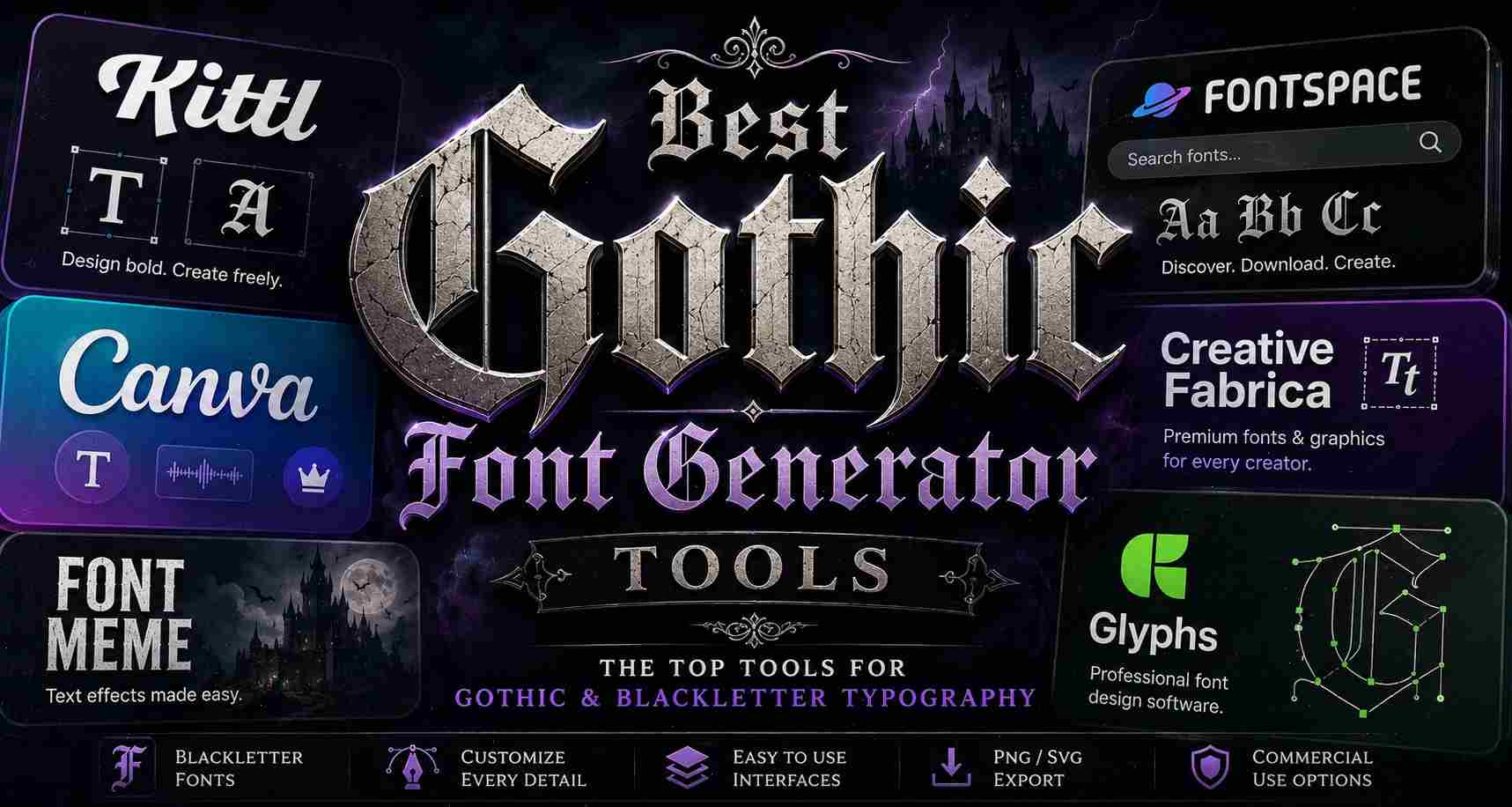
Best Gothic Font Generator Tools in 2026: Free, AI-Powered & Downloadable Options
Gothic typography keeps showing up everywhere in 2026 — gaming logos, dark fantasy branding, metal-inspired merch, TikTok edits, YouTube thumbnails, and even cyber-goth UI design. The problem is that most “gothic text generators” online still feel outdated, overloaded with ads, or limited to basic copy-paste text effects.
The best Gothic font generator tools today go beyond simple text conversion. They let you customize spacing, shadows, medieval textures, engraving styles, and export-ready assets for real projects.
After comparing modern typography platforms and font-focused design tools, these are the Gothic font generators that actually stand out.
What Makes a Good Gothic Font Generator?
Not every blackletter or medieval font tool is useful in practice. Some generate attractive previews but completely fall apart when you try to use them for branding or content creation.
The strongest tools in 2026 usually offer:
- Real OpenType Gothic fonts
- Editable typography controls
- Layer effects for dark fantasy styling
Another important detail: readability.
A lot of Gothic fonts look impressive at first glance but become unreadable in logos, thumbnails, or UI overlays. The best generators balance atmosphere with clarity.
Best Gothic Font Generator Tools in 2026
1. Kittl
Kittl has become one of the strongest typography-focused platforms for Gothic and medieval-style text design.
Its biggest advantage is the built-in styling engine. You can create blackletter typography and instantly apply engraved textures, metallic effects, vintage shading, and fantasy-inspired layouts without manually building everything layer by layer.
For gaming creators and merch designers, this workflow is noticeably faster than using traditional graphic editors for every design variation.
Best For:
Dark fantasy logos, RPG branding, metal-inspired merch, YouTube thumbnails.
Why It Works:
- Excellent Gothic template library
- Real-time text effects
- Strong medieval and vintage typography presets
One thing worth noting: some presets lean heavily into trendy aesthetics. For professional branding, simplifying the effects usually produces cleaner results.
2. Canva
Canva still isn’t a dedicated font design platform, but for fast Gothic typography creation, it works surprisingly well.
The main advantage is speed. You can select blackletter fonts, combine them with social templates, and export polished graphics within minutes.
It works especially well for:
- Twitch overlays
- Discord banners
- TikTok graphics
- quick gaming thumbnails
Best For:
Social content, streamer branding, quick fantasy visuals.
Why It Works:
The limitation is customization depth. Compared to typography-focused tools, Canva offers less control over advanced glyph styling and OpenType features.
3. Font Meme
Font Meme remains one of the simplest browser-based Gothic text generators online.
You type text, choose a Gothic or Old English font, apply basic effects, and export the result immediately.
It’s lightweight and useful when you need fast stylized text without opening a full design application.
Best For:
Quick text generation, meme culture graphics, temporary branding concepts.
Why It Works:
- Extremely fast
- No learning curve
- Huge font preview library
- Great for experimenting with styles
The downside is flexibility. Once projects become more serious, most creators quickly move toward more advanced design tools.
4. FontSpace
FontSpace works more like a font discovery platform than a complete editor, but it’s still one of the best places to explore Gothic typography styles.
Its blackletter and medieval categories include:
- horror fonts
- vampire-inspired typography
- church manuscript styles
- fantasy lettering
- heavy Gothic display fonts
Best For:
Finding niche Gothic fonts for branding and UI design.
Why It Works:
- Huge font catalog
- Strong filtering system
- Good preview tools
- Many free-use options
Licensing varies significantly between fonts, so checking commercial rights before using fonts in monetized projects is important.
5. Creative Fabrica Font Generator
Are Gothic font generators free?
Many Gothic font generators offer free versions, but advanced exports, premium fonts, and commercial licenses often require paid plans.
What’s the difference between Gothic and blackletter fonts?
Blackletter is a specific typography style within Gothic lettering. Most online Gothic font generators mainly use blackletter-inspired typefaces.
Can Gothic fonts be used for gaming logos?
Yes. Gothic typography is widely used in RPG branding, dark fantasy games, medieval-inspired interfaces, and metal-style visual design.